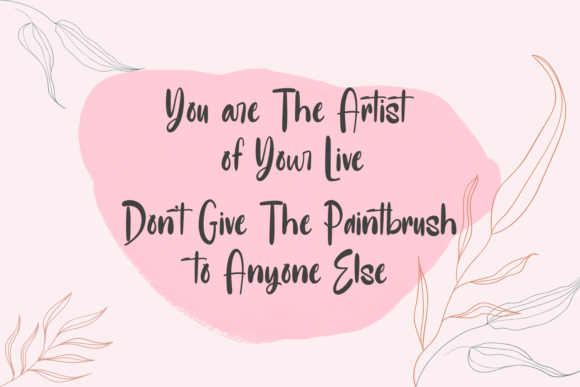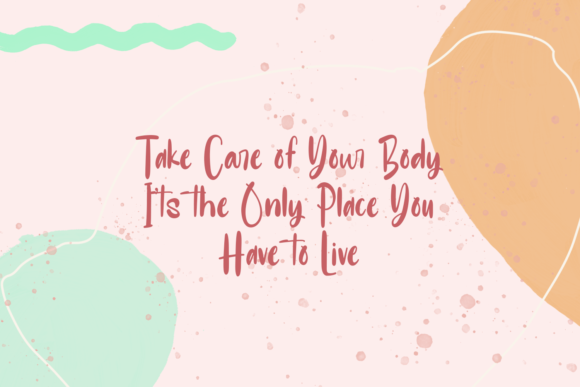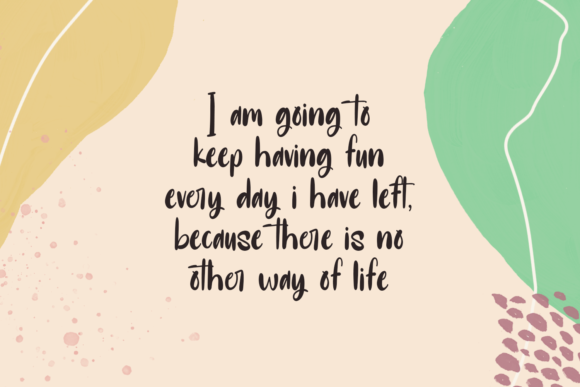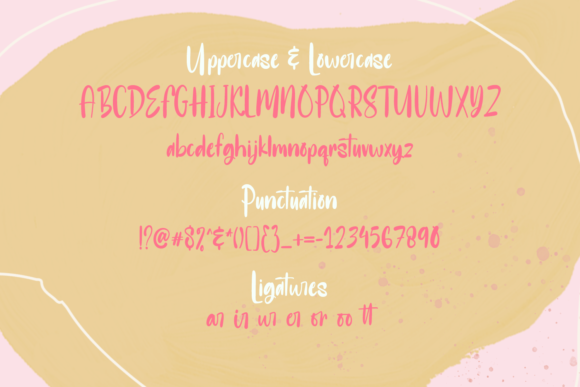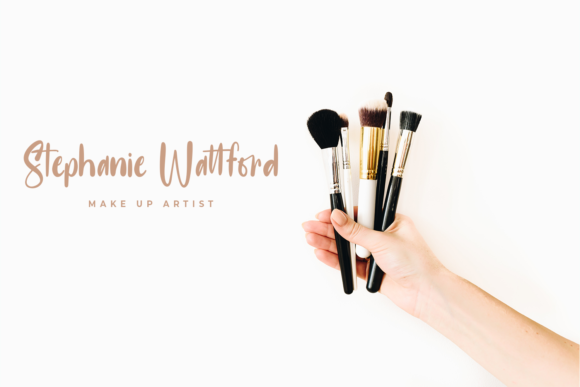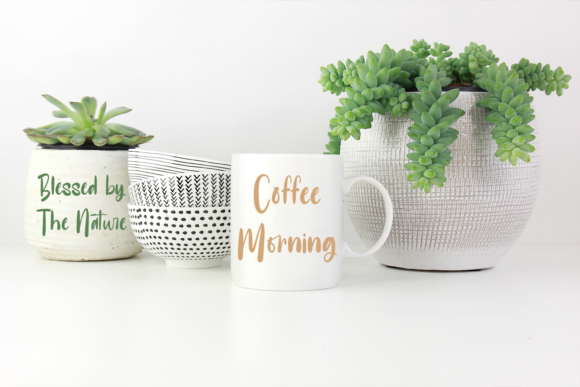
About Saturday Hustle Font
Saturday Hustle is a dynamic and contemporary handwritten font that exudes a playful and energetic vibe. With its modern and original look, this font is perfect for a wide range of creative projects, from letterheads and titles to stationery and more.
The unique characteristics of Saturday Hustle make it stand out and capture attention. Its handcrafted appearance gives your designs a personal and artisanal touch, making them feel authentic and relatable. The letters have a playful irregularity, adding a sense of movement and liveliness to your typography.
Whether you’re designing a logo, creating eye-catching headings, or crafting stylish stationery, Saturday Hustle adds a touch of modernity and creativity. Its versatility allows it to adapt to various design contexts, from bold and edgy to casual and approachable.
The font’s casual and handwritten style makes it particularly suitable for projects that aim to convey a sense of fun, adventure, and individuality. Its relaxed yet confident vibe makes it ideal for brands, products, or events targeting a youthful and trendy audience.
Saturday Hustle can be used in both digital and print media, giving you the flexibility to apply it to a wide range of design projects. Its legibility ensures that your message is effectively communicated, while its unique and original look sets your designs apart from the crowd.
Embrace the modern and playful spirit of Saturday Hustle and let it inspire your creativity. Use it to add a touch of personality and energy to your designs, creating a memorable and engaging visual experience for your audience.